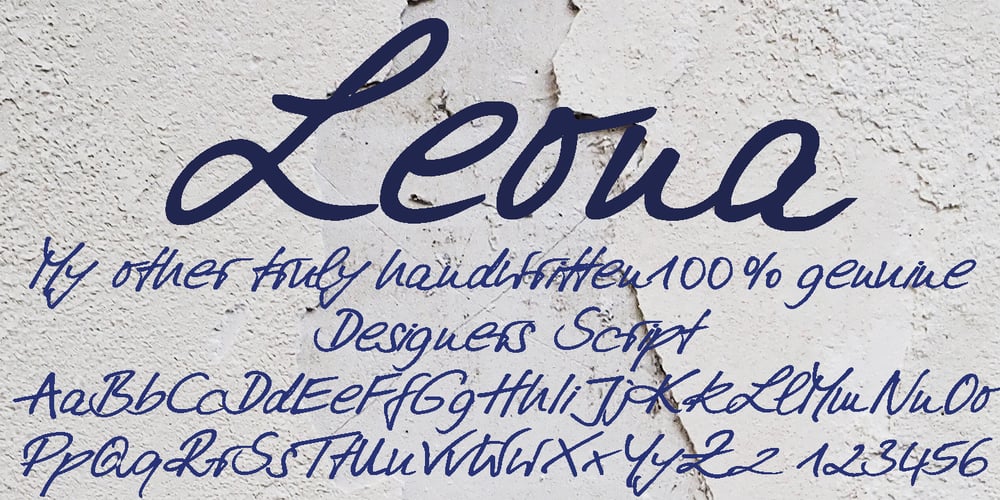
Leona Font Family was designed by Gert Wiescher and published by Autographis. Leona contains 1 styles and family package options. Leona is a handwritten script, that has been tweaked here and there to make it more smooth.